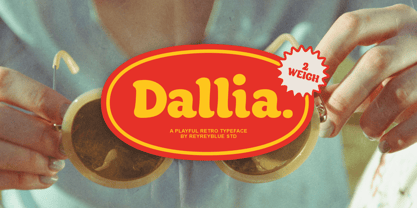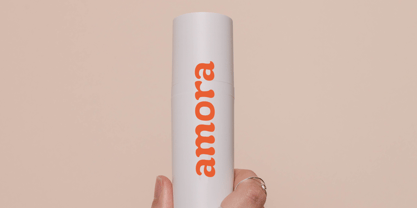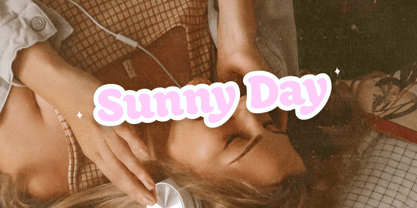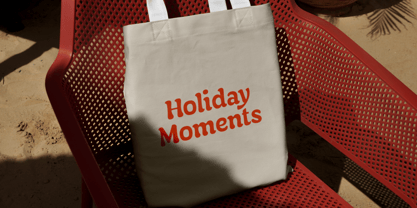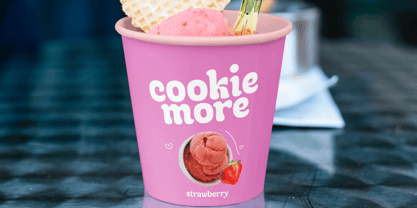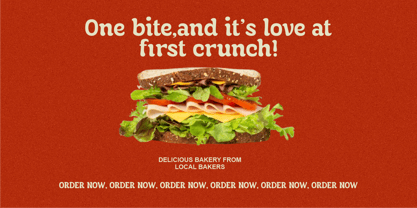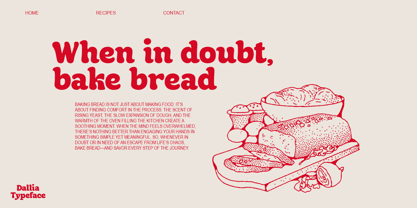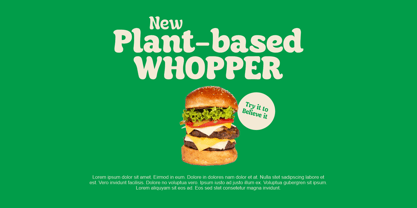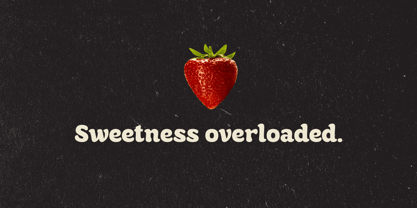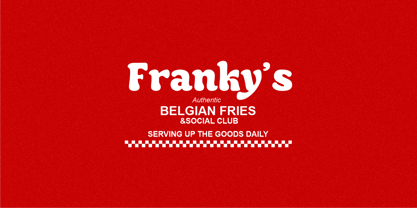
Dallia
by Reyrey Blue Std
The Dallia Font Family was designed by Risca Anitawati and published by Reyrey Blue Std. Dallia contains 2 styles and family package options.
Dallia – A Classic Retro Font with a Warm Touch!
Looking for a vintage-inspired font that adds warmth and character to your designs? Dallia is the ideal choice! With its bold, classic typography, this font is perfect for logos, packaging, posters, social media graphics, and more. Whether you're designing for a bakery, café, or creative business, Dallia brings a timeless and professional touch.
Why Choose Dallia?
• Retro yet modern – a classic look with contemporary appeal
• Easy to read and versatile for various designs
• Perfect for food, café branding, creative businesses, and many more